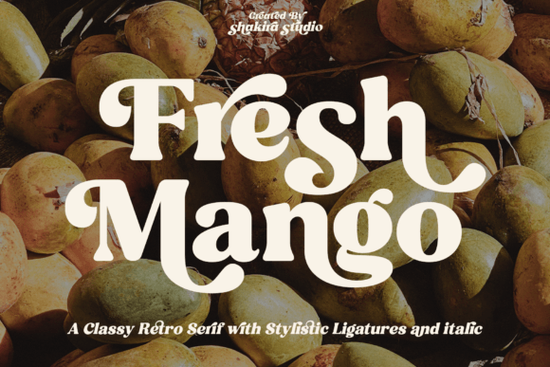
If you're looking for a retro serif font that adds quiet confidence to headlines without shouting, Fresh Mango Font fits right in. It’s not overly ornate, but it carries presence clean lines, subtle contrast, and those soft curved terminals that make letters feel intentional and well-crafted. Whether you're designing wedding invitations, holiday cards, small-batch product labels, or social media graphics for your handmade shop, this typeface brings warmth and quiet elegance without leaning too far into nostalgia.
What makes Fresh Mango work so well for real projects?
Unlike some retro fonts that lean heavily into 1970s excess think bold shadows, exaggerated swashes, or busy alternates Fresh Mango keeps things refined. Its structure is rooted in classic serif proportions, but the details give it personality: slightly flared serifs, gentle curves at the ends of strokes, and a rhythm that feels both steady and friendly. That balance is why it pairs so naturally with modern layouts. You can use it solo for a clean, confident statement or layer it with a neutral sans-serif for body text and let it shine as your headline anchor.
It’s also PUA encoded, which means all the stylistic alternates, ligatures, and special glyphs show up reliably in design apps like Adobe Illustrator, Affinity Designer, or even Cricut Design Space (with proper font installation). No digging through character maps or guessing which key does what just select the font and start typing. If you’ve ever struggled to access swashes in other retro fonts, this one removes that friction.
Where do designers and makers actually use it?
- Print-on-demand sellers use it for vintage-style mugs, tote bags, and greeting cards especially around holidays or bridal seasons. Its readability at medium sizes (16–24 pt) makes it reliable on fabric and ceramic surfaces.
- Small business owners choose it for café menus, boutique signage, or local event posters where they want approachable sophistication not corporate stiffness.
- Crafters and hobbyists love how easily it cuts on vinyl or engraves on wood. The letterforms hold detail well, even at smaller scales (down to ~12 pt for printed quotes or laser-cut tags).
- Wedding stationers pair it with soft watercolor textures or minimalist layouts it doesn’t compete with delicate illustration, but still holds its own as a focal point.
How does it compare to other popular serif fonts on Creative Fabrica?
If you already own or are considering Vogue Font, you’ll notice Fresh Mango sits a bit softer less high-contrast, less dramatic, more grounded. It’s a gentler option when Vogue feels too commanding for your brand voice. For fans of Orvella Font, Fresh Mango shares that same attention to terminal shape and rhythm, but swaps out Orvella’s slight calligraphic tilt for something more upright and timeless.
Compared to Marquis Elegant Modern Serif, Fresh Mango leans more vintage than contemporary it doesn’t have Marquis’s sharp geometric precision, but it offers more warmth and tactility. And while The Avenue Editorial Font excels in long-form editorial settings, Fresh Mango shines in short bursts: headlines, logos, quotes, and packaging where clarity and charm matter most.
- Try pairing it with a light-to-medium weight sans-serif (like Montserrat Light or Inter Regular) for balanced hierarchy no need to overthink contrast; Fresh Mango handles visual weight on its own.
- Use OpenType features sparingly: enable standard ligatures first, then test discretionary ones only if they improve readability (e.g., “fi”, “fl” look cleaner with ligatures on).
- Test print a sample at actual size especially if using it for physical products. Retro serifs sometimes soften on uncoated paper; Fresh Mango holds up well, but seeing it in context helps avoid surprises.
If you’ve been searching for a retro serif font that feels familiar but never dated and works across digital, print, and craft applications Fresh Mango Font is worth trying next. It’s not flashy, but it’s dependable, versatile, and quietly expressive. Start with one project where you’d normally reach for a generic serif, swap it in, and see how much more grounded and intentional the result feels.